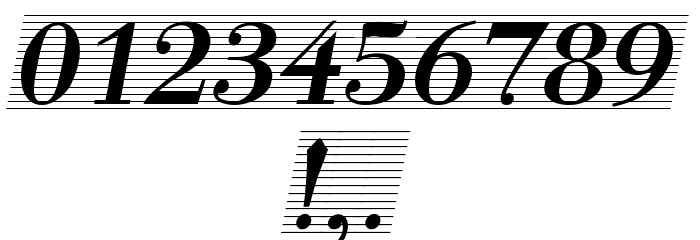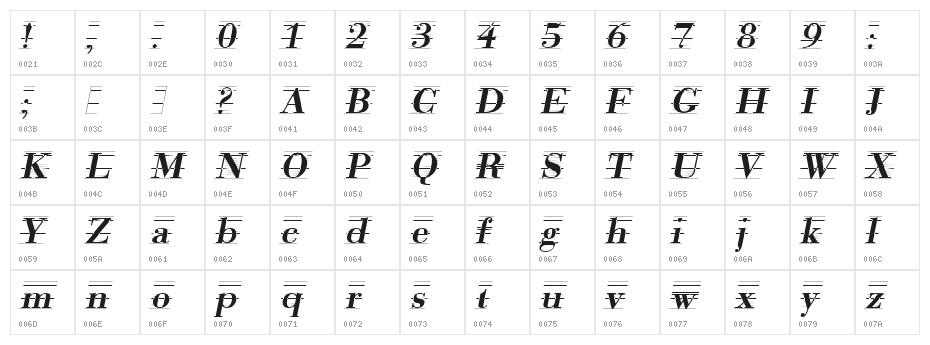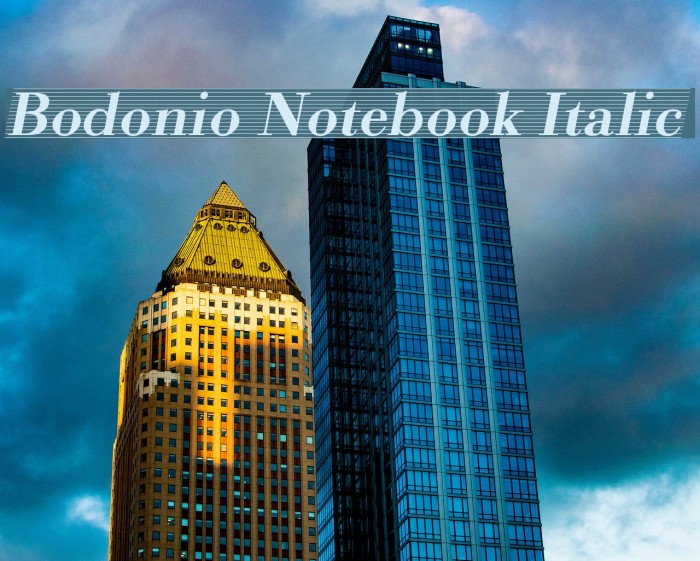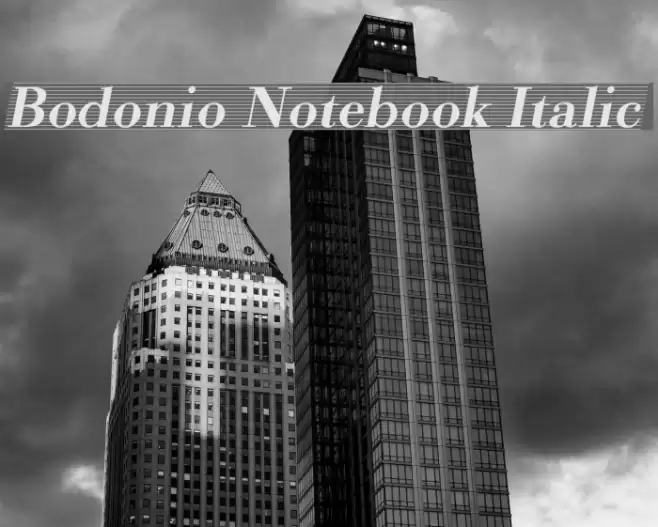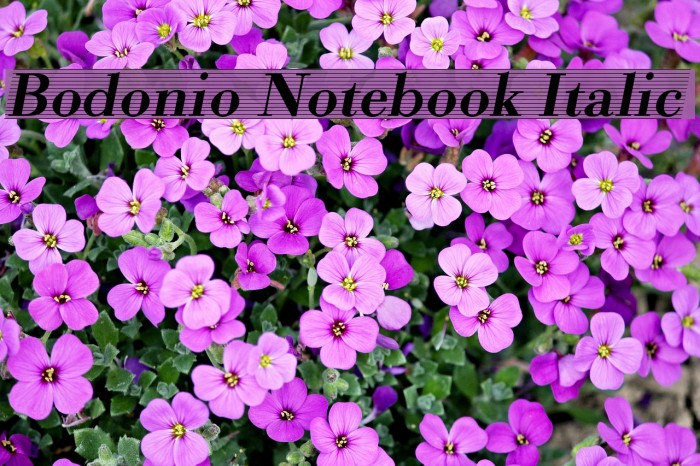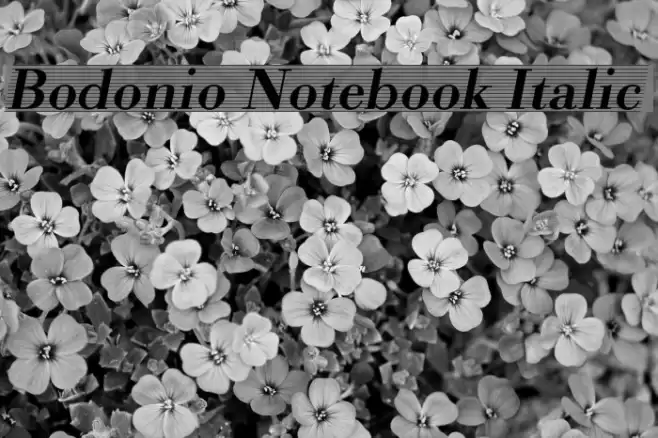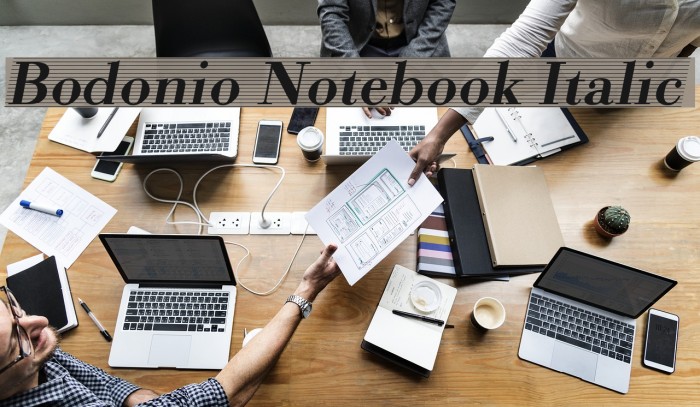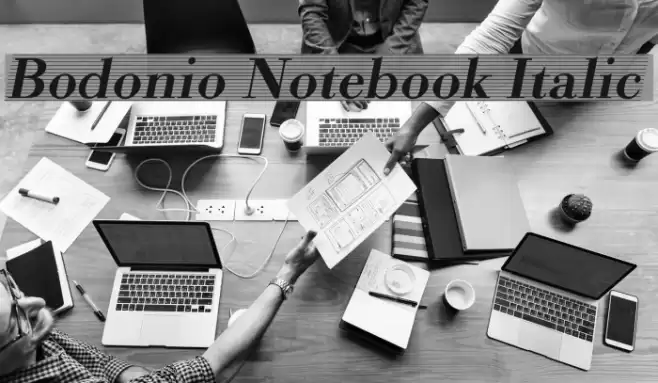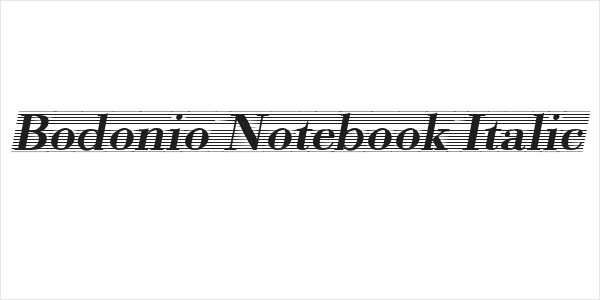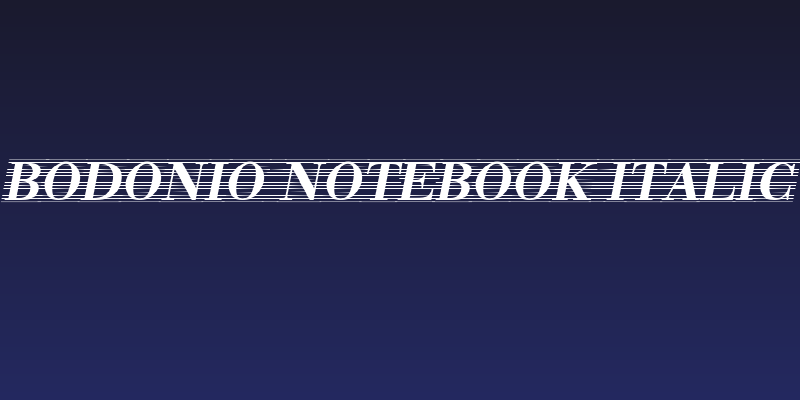
Bodonio Notebook Italic Font
Bodonio Notebook Italic Description
This elegant serif font features a classic and sophisticated design with high contrast between thick and thin strokes. The italic style adds a graceful slant to the characters, enhancing its refined appearance. The uppercase letters are bold and commanding, while the lowercase letters maintain a delicate balance, offering a harmonious flow. The numerals are clear and distinct, making them easily readable. Special characters are thoughtfully designed, maintaining the overall aesthetic. This font exudes a timeless quality, suitable for projects that require a touch of elegance and tradition.